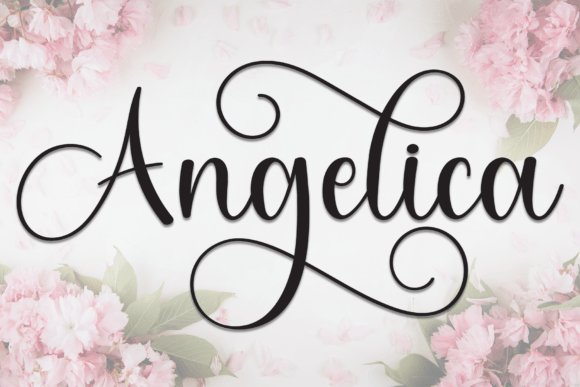
Introducing Angelica Font: Elevate Your Designs with Elegance and Sophistication
In the world of typography, few fonts manage to convey the essence of romance and luxury as effortlessly as the Angelica Font. This elegant script font, adorned with beautiful swashes, is designed to add a touch of sophistication to your designs, making it perfect for a wide range of creative projects. From wedding invitations and branding initiatives to social media graphics and handwritten quotes, Angelica Font is the ideal choice for those seeking to infuse their work with a sense of refinement and grace.
The Beauty of Angelica Font
Angelica Font is a masterpiece of typographic design, characterized by its graceful, flowing lines and exquisite swashes. The font’s elegant beginnings and endings are meticulously crafted to add an extra layer of sophistication to any design. Whether you’re looking to create a luxurious brand identity, a romantic wedding invitation, or a captivating social media graphic, Angelica Font provides the perfect typographic solution.
Key Features of Angelica Font
- Elegant Script Design: Angelica Font boasts a beautiful script design that exudes elegance and sophistication. Its flowing lines and curves make it perfect for creating romantic and luxurious visuals.
- Beautiful Swashes: The font features stunning beginning and ending swashes that add an extra touch of refinement to your designs. These swashes can be used to create a sense of continuity and flow, tying your design elements together seamlessly.
- Versatile: Angelica Font is incredibly versatile, making it suitable for a wide range of design projects. Whether you’re working on a wedding invitation, a branding project, or a social media graphic, this font is sure to impress.
Uses of Angelica Font
Angelica Font’s versatility makes it an excellent choice for various design projects. Here are some of the most popular uses of this elegant script font:
Wedding Invitations
Wedding invitations are a perfect opportunity to showcase your personal style and set the tone for your special day. Angelica Font, with its romantic and luxurious feel, is an ideal choice for designing beautiful and elegant wedding invitations. The font’s swashes add a touch of sophistication, making your invitation truly unforgettable.
Branding Projects
When it comes to branding, typography plays a crucial role in establishing your brand’s identity. Angelica Font, with its elegant and refined design, is perfect for creating a luxurious brand image. Use it for your logo, packaging, or marketing materials to add a touch of sophistication and elegance.
Social Media Graphics
Social media graphics are an excellent way to engage with your audience and convey your message in a visually appealing way. Angelica Font, with its beautiful swashes and elegant design, is perfect for creating captivating social media graphics that stand out from the crowd.
Handwritten Quotes
Handwritten quotes are a great way to add a personal touch to your designs. Angelica Font, with its flowing lines and elegant swashes, is ideal for creating beautiful handwritten quotes that inspire and motivate.
Tips for Using Angelica Font
To get the most out of Angelica Font, here are some tips to keep in mind:
Experiment with Swashes
The swashes in Angelica Font are one of its most distinctive features. Experiment with different swash combinations to find the perfect look for your design.
Mix and Match with Other Fonts
Angelica Font pairs well with a variety of fonts. Experiment with different font combinations to create a unique and visually appealing design.
Use it for Headings and Titles
Angelica Font is perfect for headings and titles, where its elegant design and swashes can be showcased to their fullest potential.
In conclusion, Angelica Font is a stunning script font that can add a touch of sophistication and elegance to your designs. Its beautiful swashes, elegant design, and versatility make it perfect for a wide range of creative projects. Whether you’re a designer, a DIY enthusiast, or a business owner, Angelica Font is an excellent choice for anyone looking to create romantic and luxurious visuals.